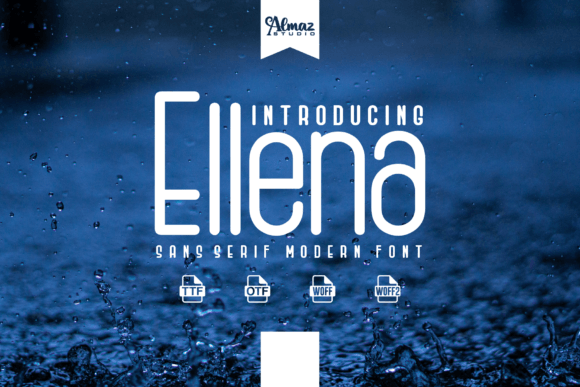
Introducing Ellena Font, the epitome of modern elegance, designed to elevate your projects to new heights of visual brilliance. With its clean lines, balanced proportions, and a touch of sophistication, Ellena will add a touch of magic to any creative endeavor.
Immerse yourself in the world of Ellena, where simplicity meets impact. This carefully crafted sans serif font is the perfect fusion of classic charm and contemporary flair. Each letterform is meticulously designed to ensure legibility and aesthetic appeal, creating a symphony of visual harmony.
Unleash the power of Ellena and witness the transformation of your designs. Whether you're crafting stunning posters, crafting captivating headlines, or designing eye-catching logos, Ellena will elevate your creations with its timeless beauty.
Unlock your imagination and let Ellena be your creative compass. Its versatility extends to a wide range of applications, from print to digital, making it the perfect choice for designers, marketers, and artists alike.
Embrace Ellena today and embark on a journey of creative exploration. Experience the joy of effortless elegance and elevate your projects to new levels of sophistication.